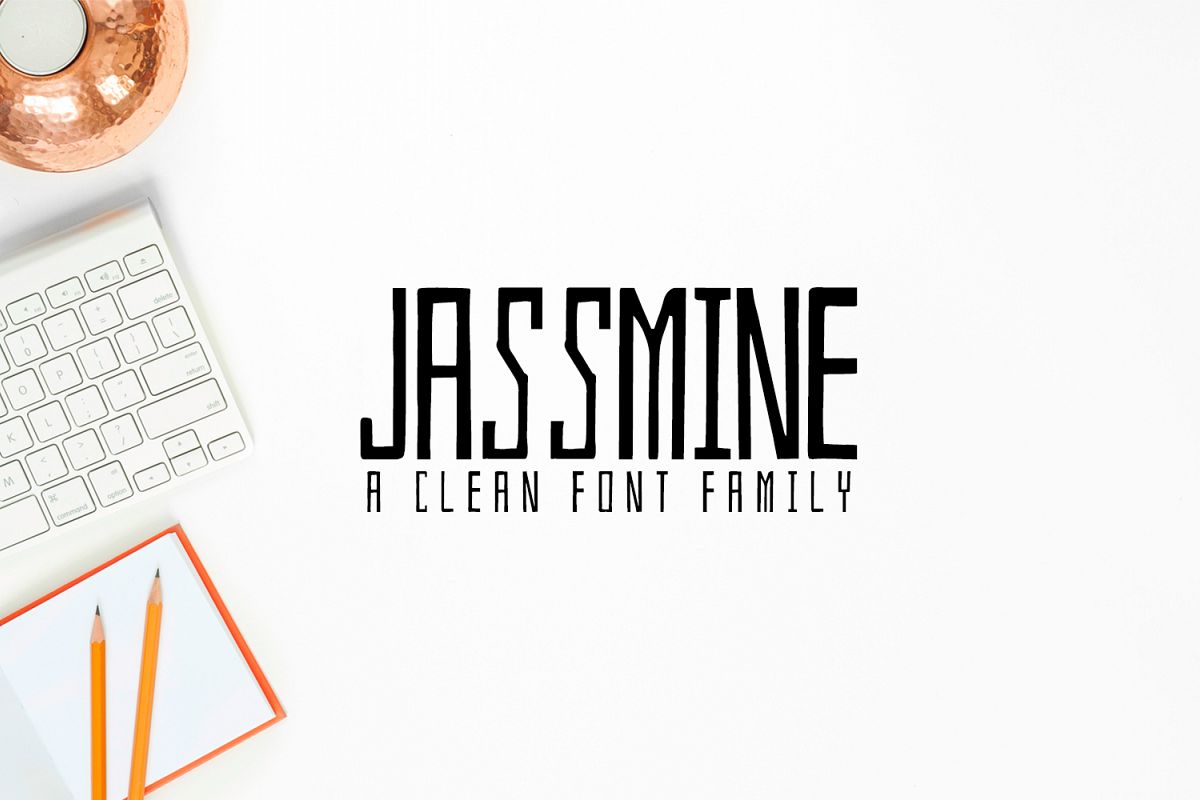
Jassmine Hand Written Typeface
Jassmine is a beautiful handwritten typeface which contains 4 weights and that is specifically designed for minimal projects. It looks impressive for branding, websites, clean designs, logos, headlines, banners and templates etc.It looks gorgeous in all caps with a wide-set spacing if you want to try a classy look, or beautiful on its own in capital and lowercase letters for something completely timeless.Included Features:
• Regular, Italic, Outline & Blur Weights
• Extras: Uppercase Multilingual Letters, Lowercase Multilingual Letters, Numbers and Punctuation + Alternatives